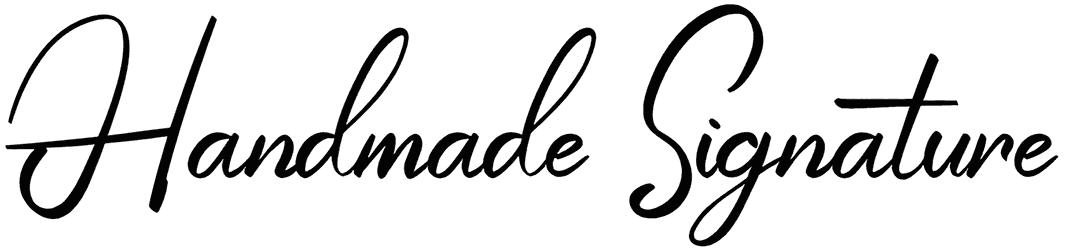
Handmade Signature Font
There are a lot of ways to give your content an unparalleled personality and among all of those using a handwriting font is the simplest. With that, we suggest taking Handmade Signature for a ride and seeing how it would work in your project. Unlike many handwritten fonts, this font appears with all its letters to give you a comfortable and professional design experience.
This font retains a classy calligraphic influence while feeling contemporary and fresh. This versatility will attract a wide range of creative ideas, from letterheads and titles to stationery.